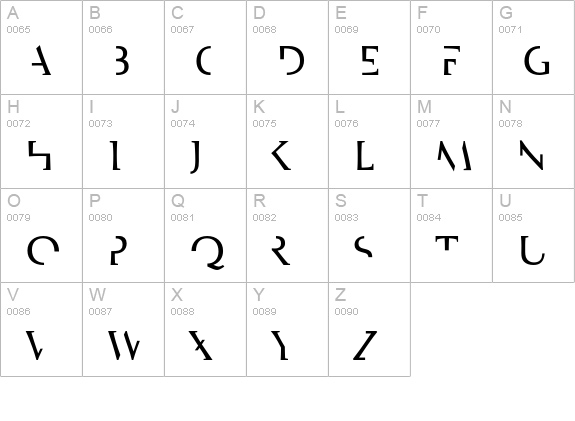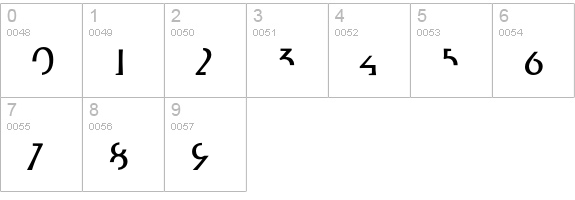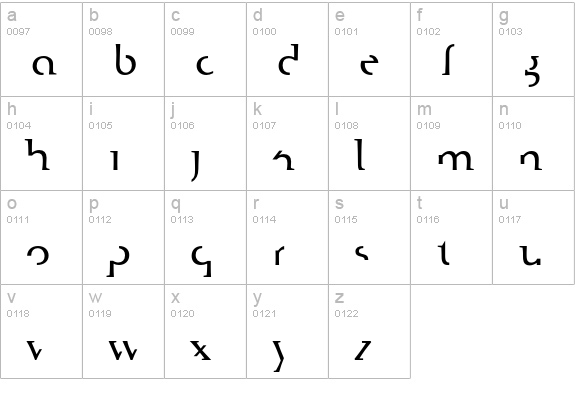
Edit-Bold is a strong, high-contrast variant in the Edit typeface family \xE2\x80\x94 well suited to headlines, attention-grabbing titles, and strong calls-to-action.
Introducing Edit-Bold, a stunningly bold and captivating font that is sure to make a lasting impression. With its clean lines and strong presence, Edit-Bold commands attention and adds a touch of sophistication to any design project. This versatile font is perfect for a wide range of applications, from headlines and logos to posters and branding materials. Its bold weight provides optimum readability, ensuring that your message is delivered with maximum impact. But what sets Edit-Bold apart is its accessibility. Not only is this font visually striking, but it is also freely available to download at FontsMarket.com. This means that you can enhance your projects with Edit-Bold without any additional cost. Whether you're a professional designer or a hobbyist, this font is a valuable resource to have in your creative toolkit. Designed with precision and crafted with care, Edit-Bold offers a seamless and effortless user experience. Its characters are meticulously designed to ensure legibility at any size, making it suitable for both print and digital platforms. Don't miss out on the opportunity to elevate your designs with Edit-Bold. Download it for free at FontsMarket.com and unlock a world of possibilities. Embrace the boldness, embrace the elegance, and let Edit-Bold be the centerpiece of your next creative endeavor.